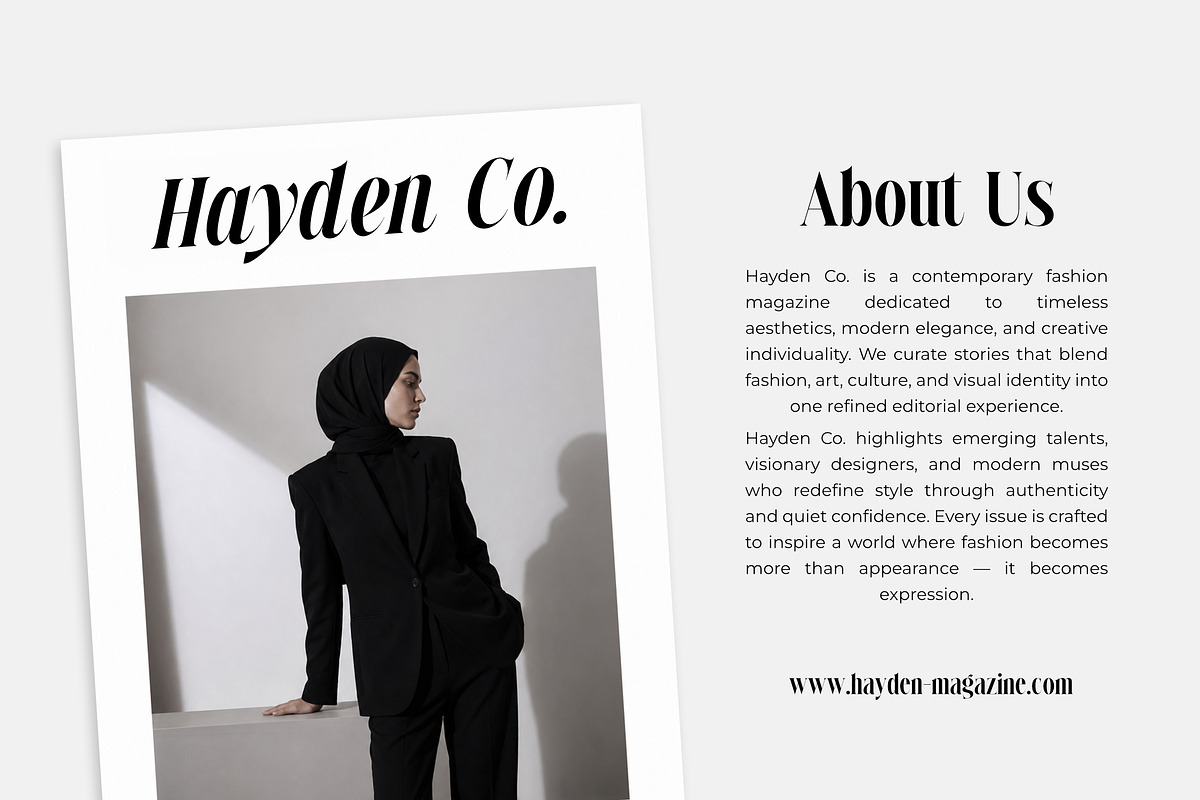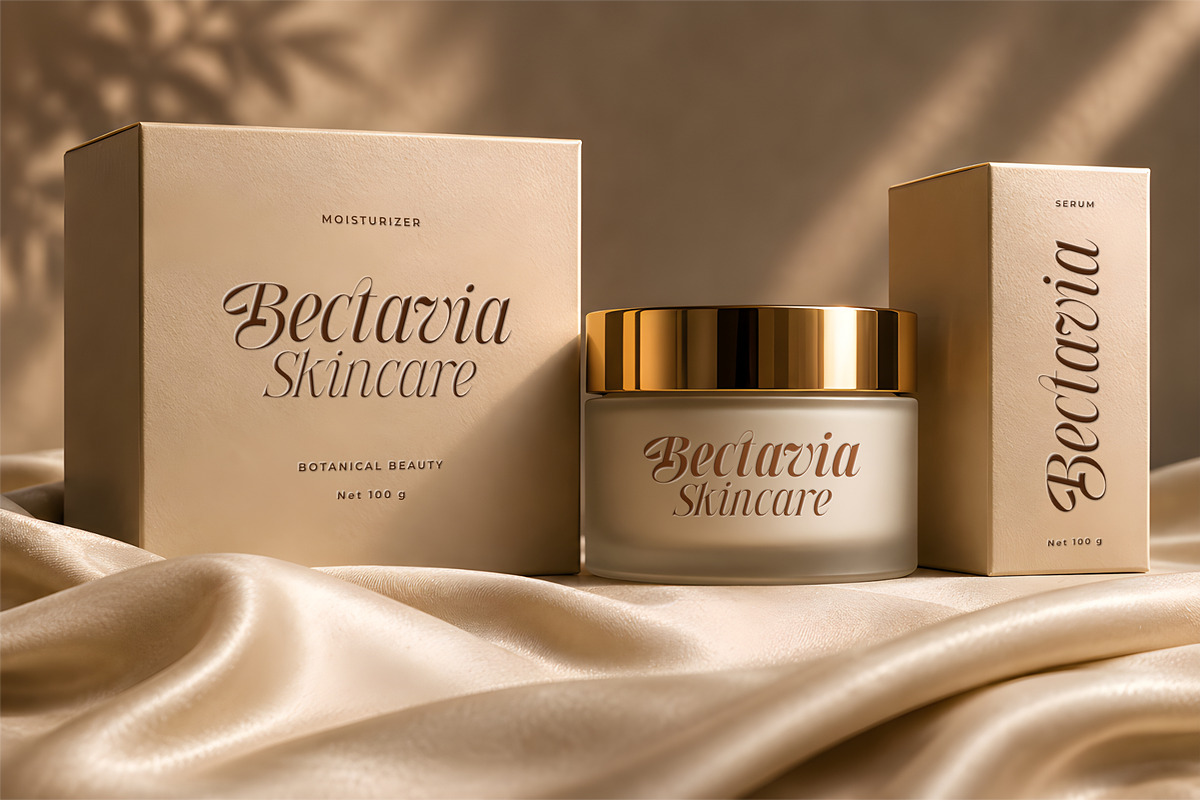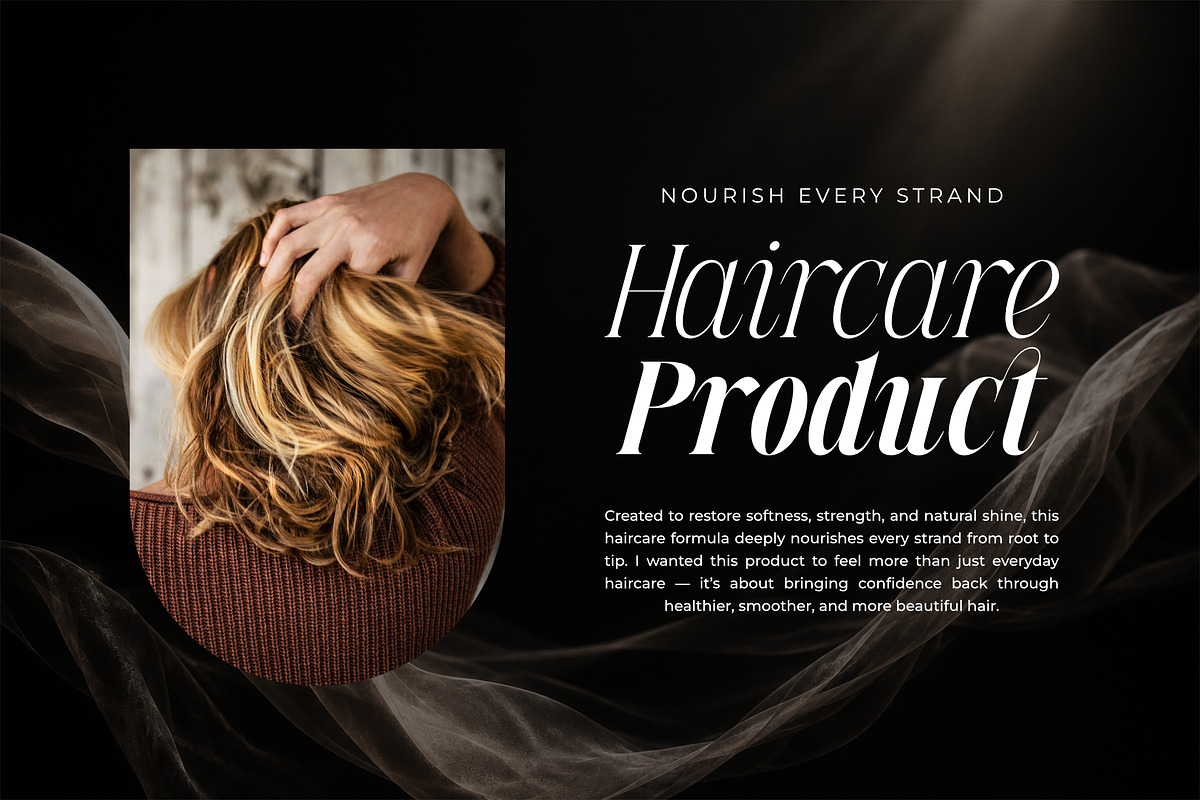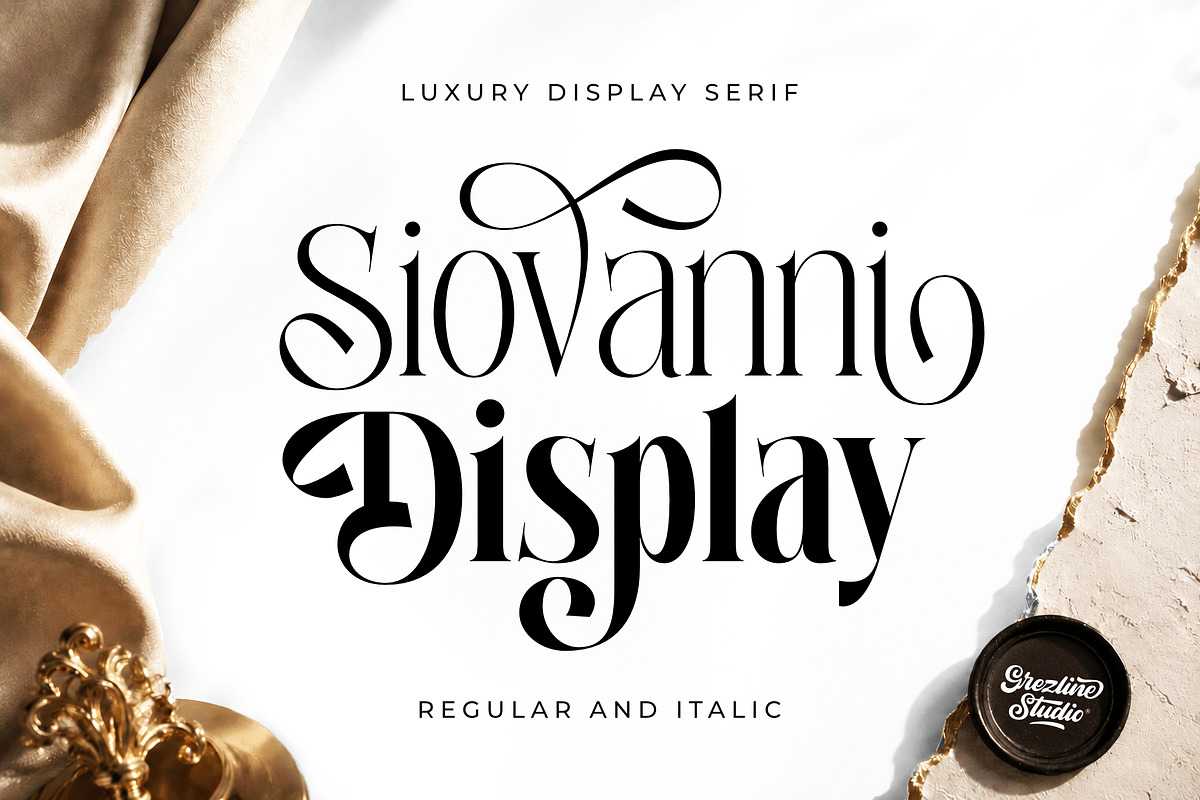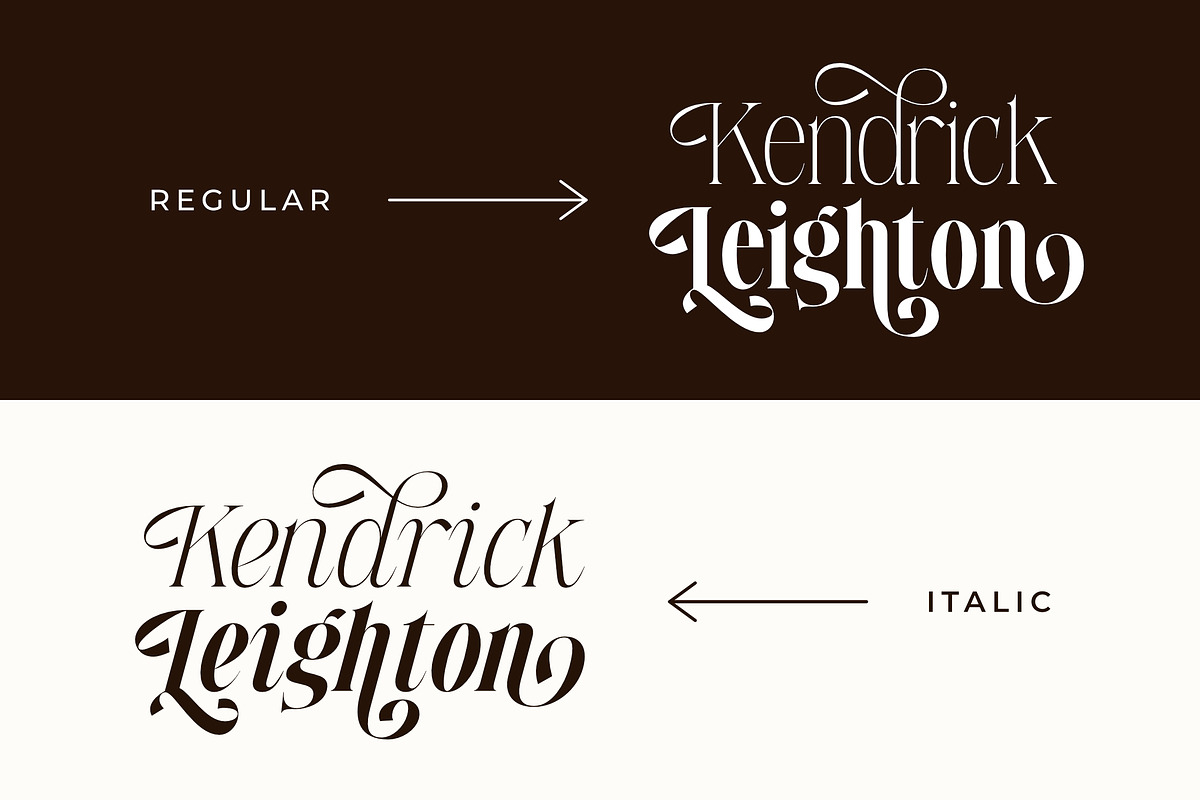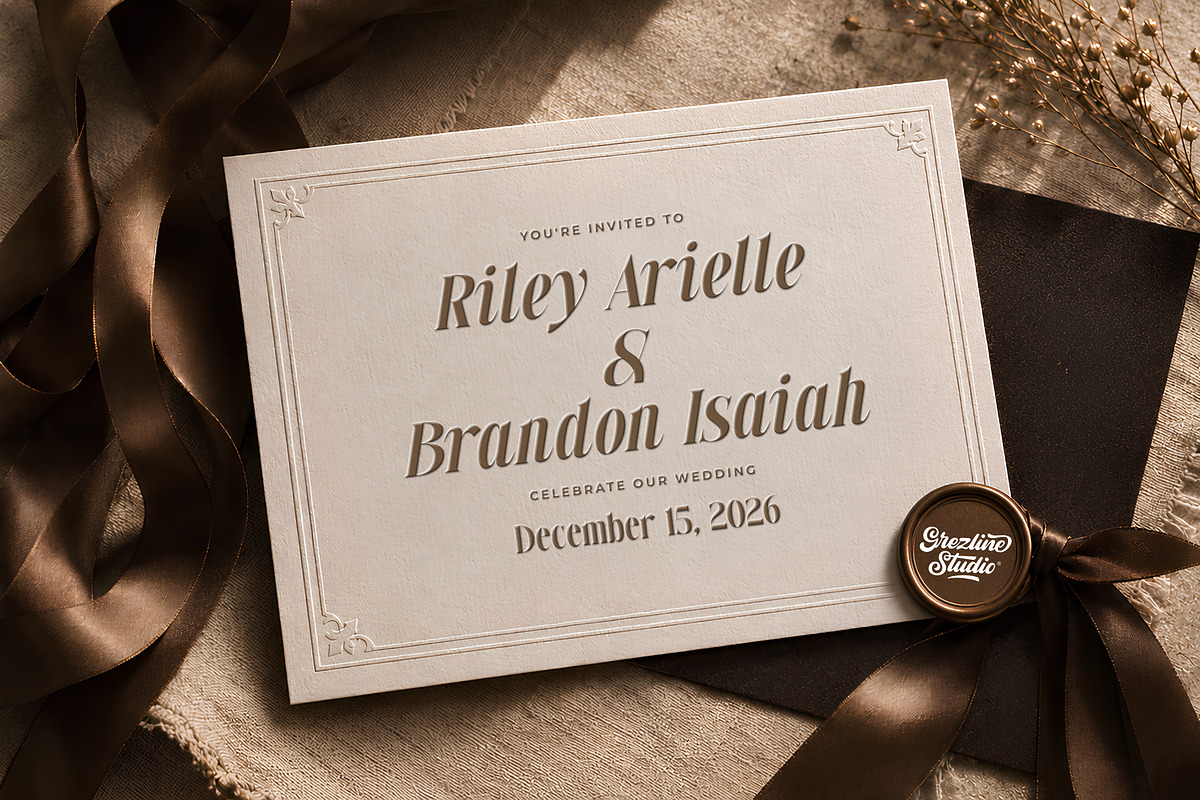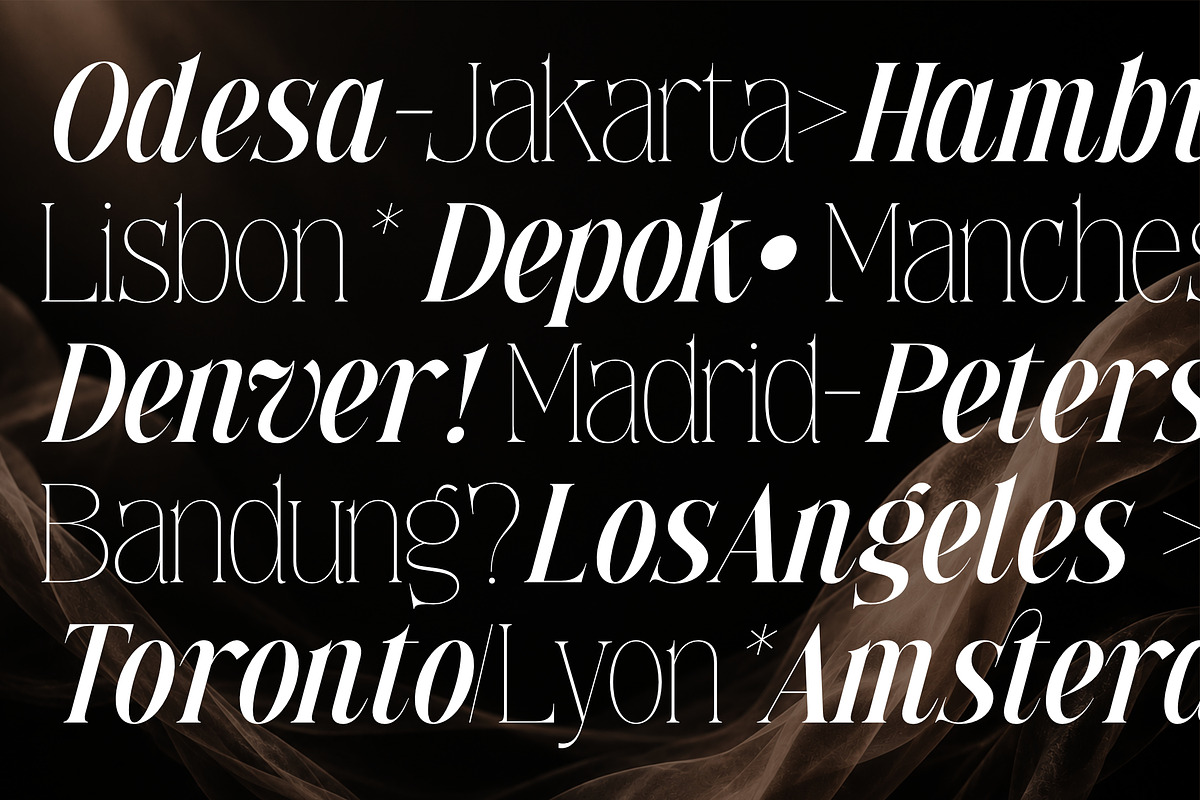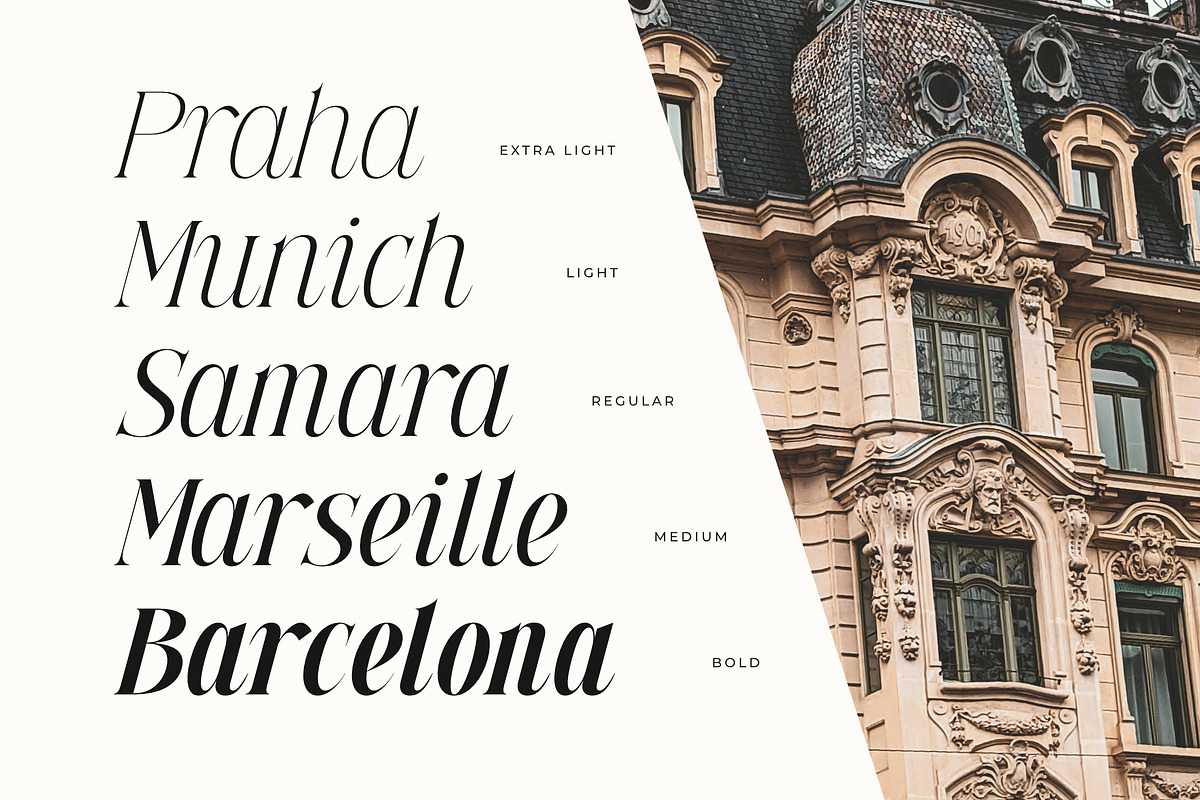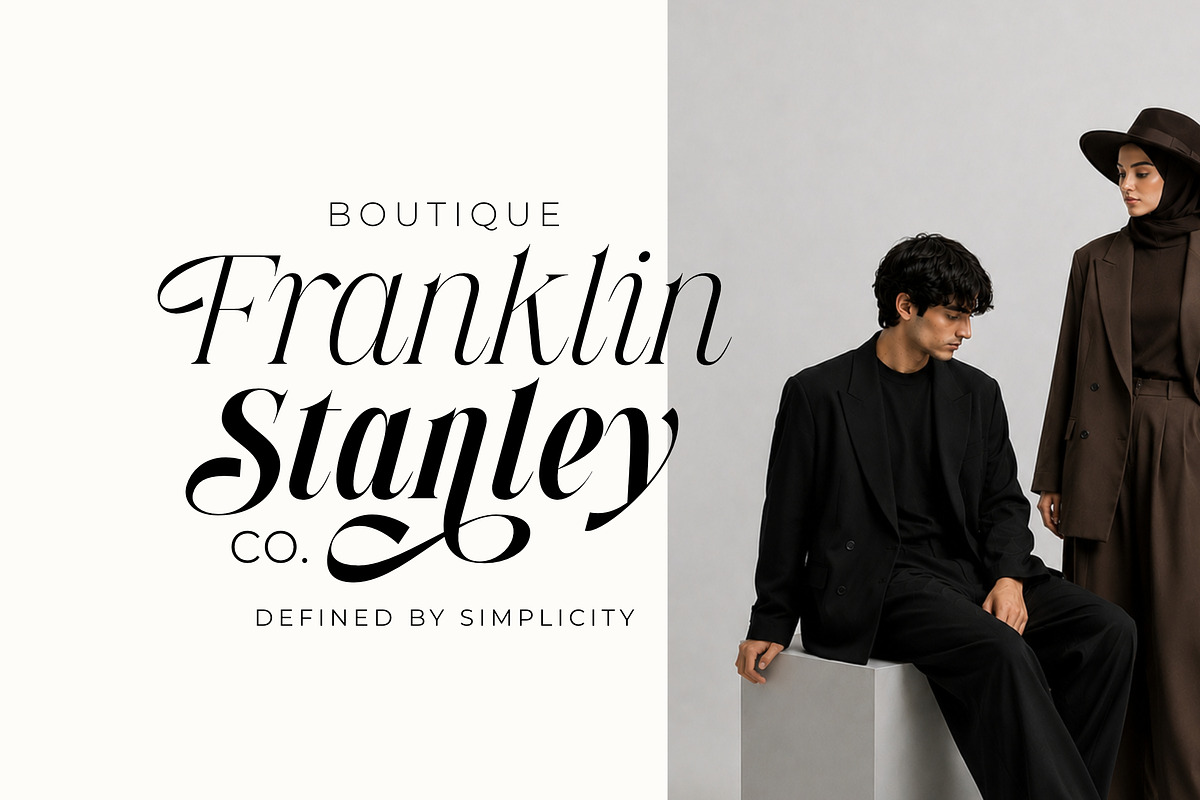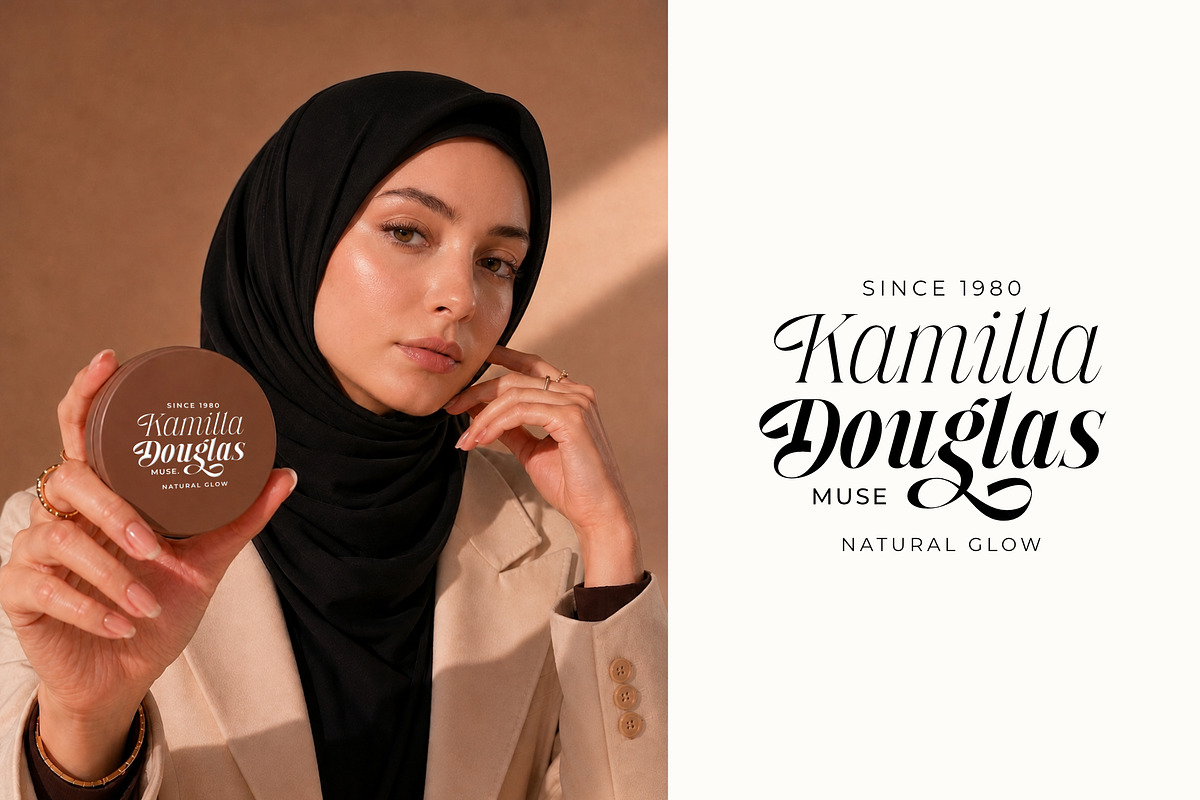
Siovanni – Luxury Display Serif
Introducing Siovanni, a luxury display serif designed for creators who appreciate refined typography.
From elegant logos and fashion editorials to premium packaging and boutique branding, every curve and contrast is carefully crafted to create a sophisticated visual experience. The combination of expressive display forms and a matching Italic style provides endless possibilities for distinctive, high-end design.
When elegance matters, let typography become the centerpiece.